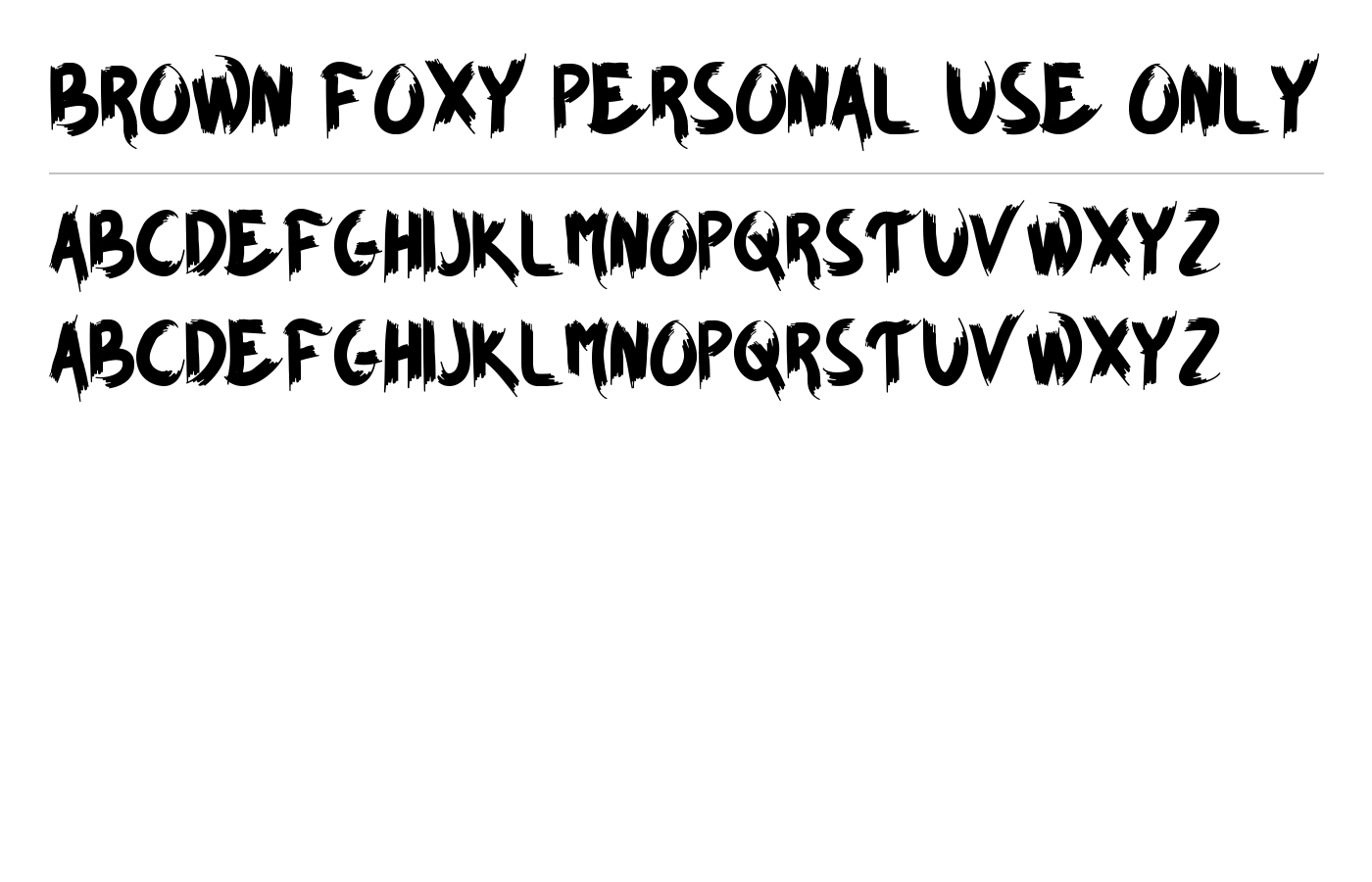
Brown Foxy is a bold, playful display font with a rough, brushstroke texture that adds dynamic energy and a hand-painted feel. Its all-uppercase style and irregular edges make it ideal for eye-catching headlines, posters, and creative branding that wants to convey fun, spontaneity, and artistic flair. This font works best where a strong, informal statement is needed rather than body text or formal uses.
BROWN FOXY Personal Use Only Font
About BROWN FOXY Personal Use Only Font
| Font family | BROWN FOXY Personal Use Only Font |
| Designer | Md. Shohail Bhuian |